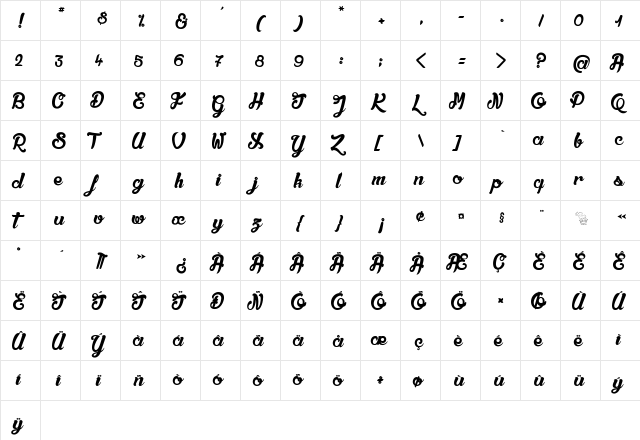
Qualit頄eluxe Platinium Regular
| Designer | dcoxy Medina Gregory |
Design Context for Qualit頄eluxe Platinium Typeface
Qualit頄eluxe Platinium is a composed and adaptable typeface that performs quietly and consistently across a wide range of design contexts.